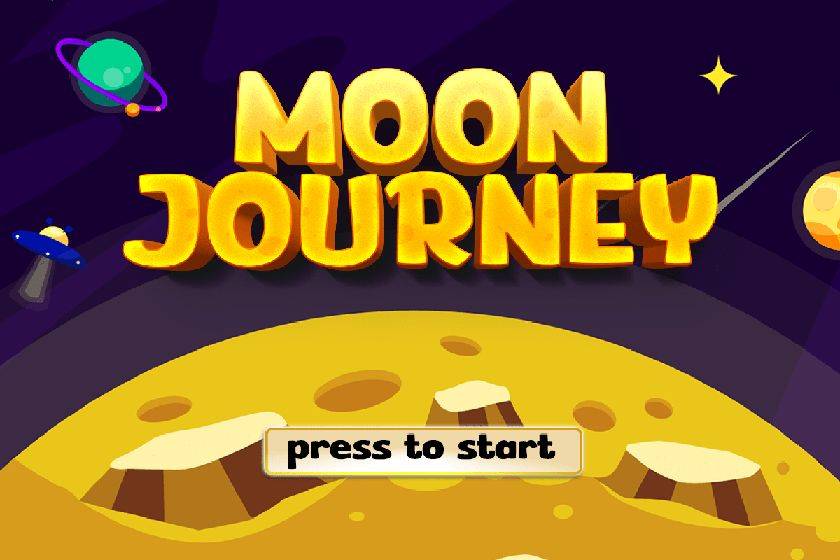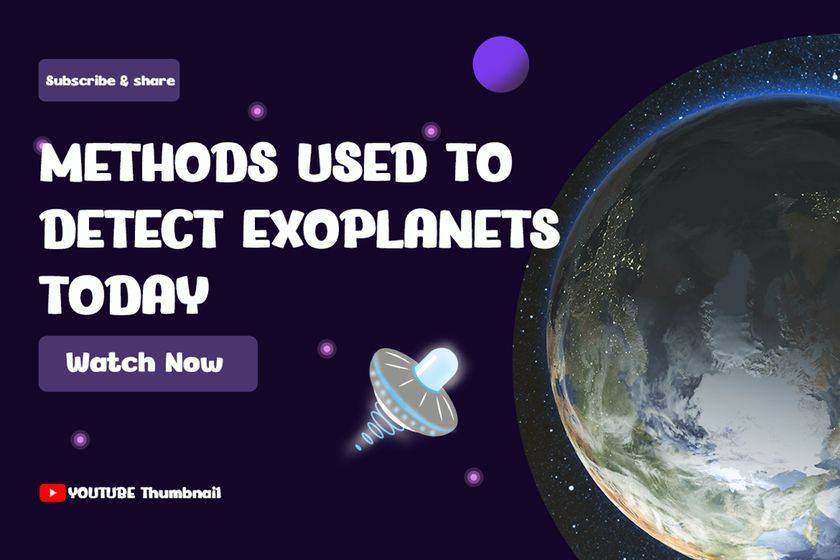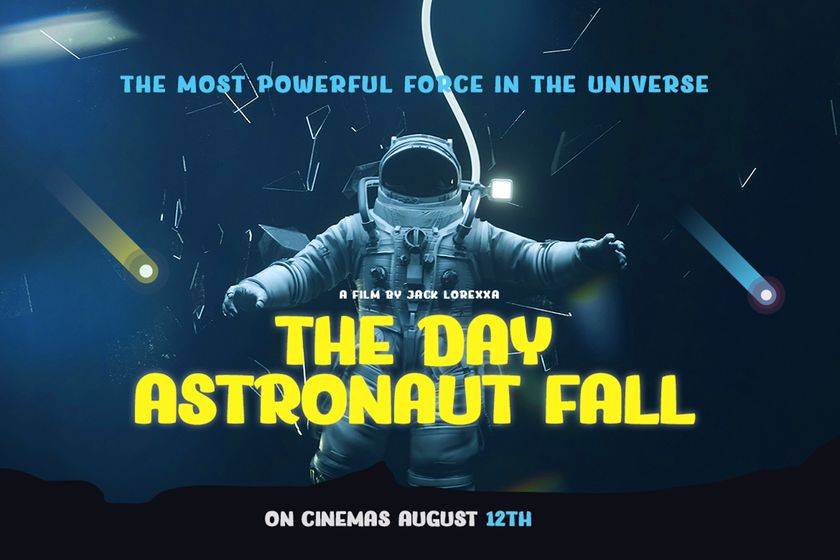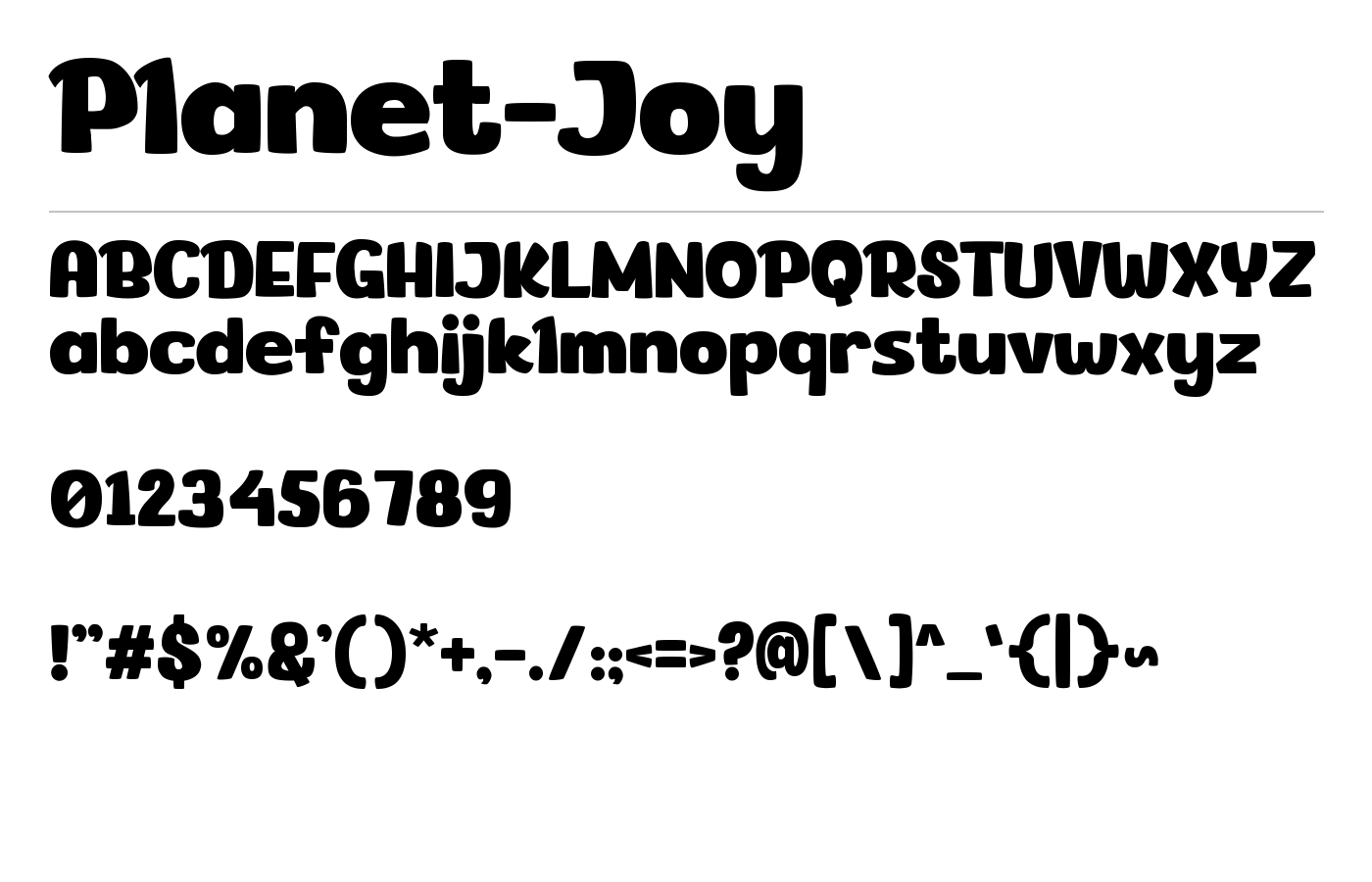
Planet Joy is a bold, playful sans serif font with rounded edges and a friendly, chunky appearance that feels warm and approachable. Its tall x-height and whimsical letterforms make it ideal for fun, lighthearted branding, children's books, or eye-catching headlines where personality and cheerfulness are key. This font works best in creative and informal settings, adding a joyful vibe that stands out with clear legibility and charm.
Planet Joy Font